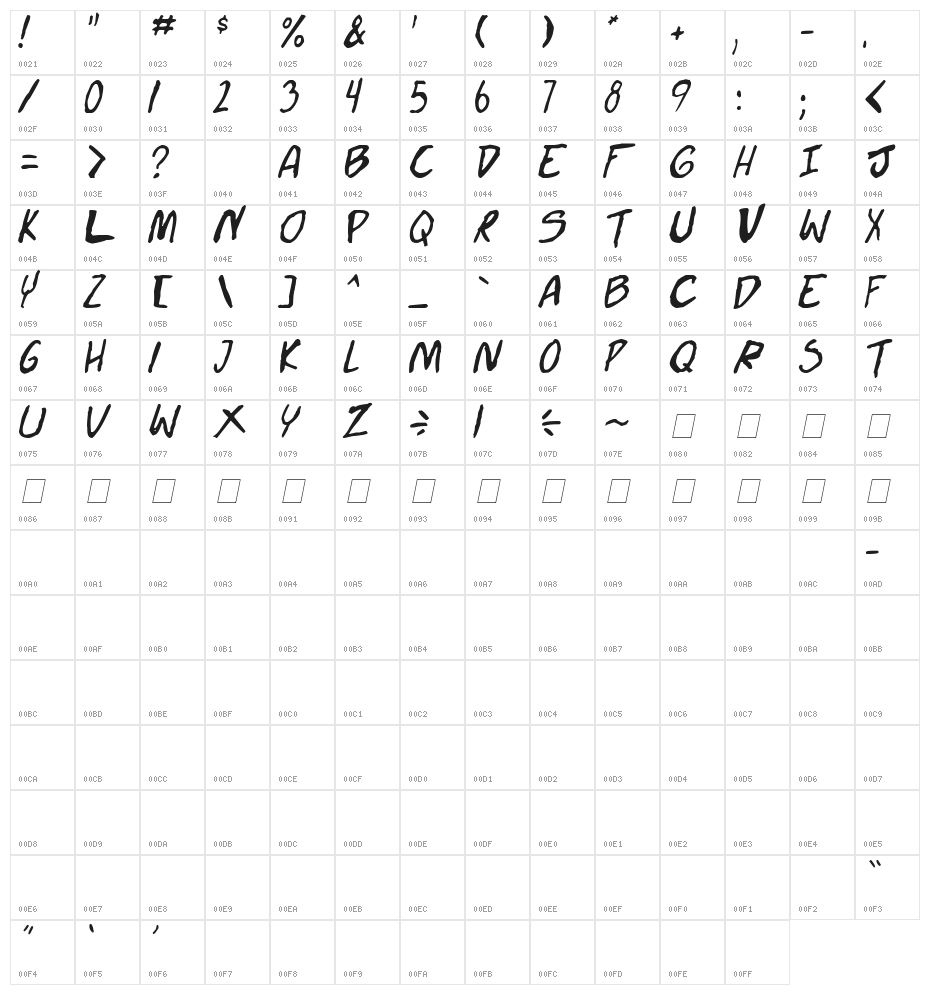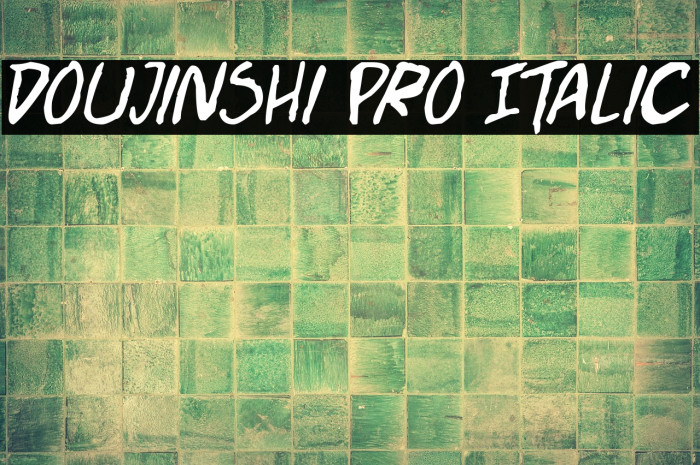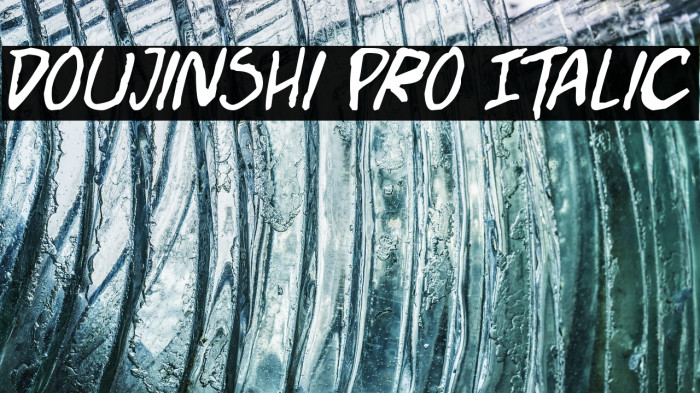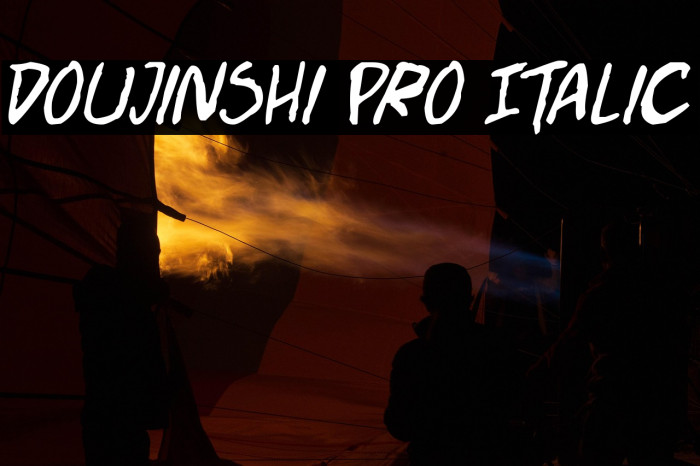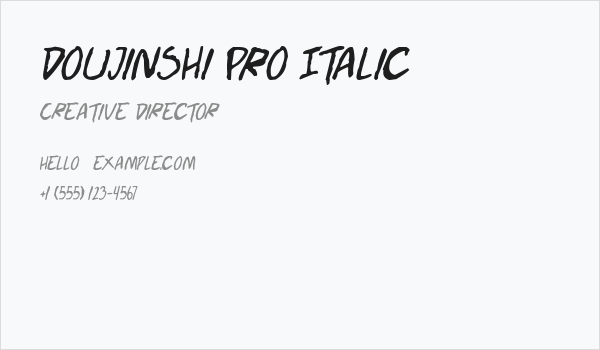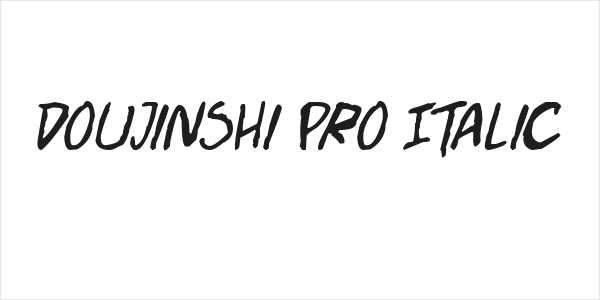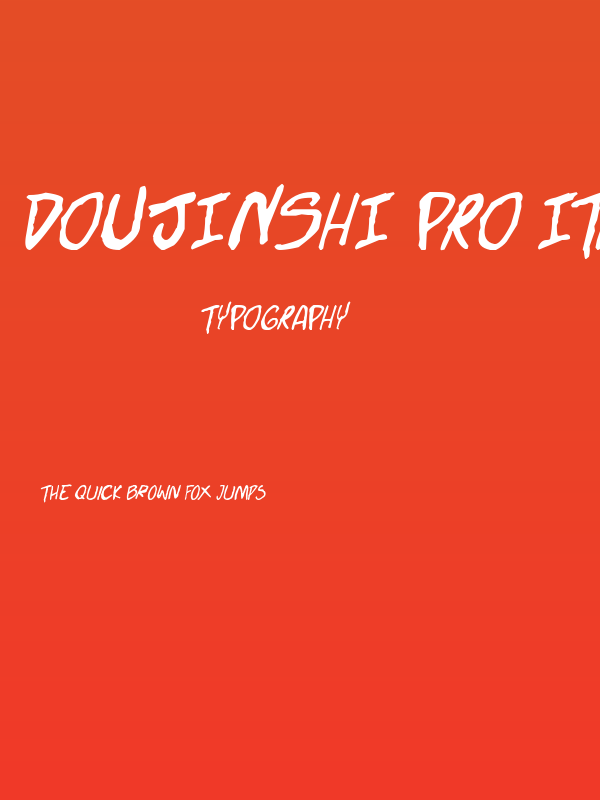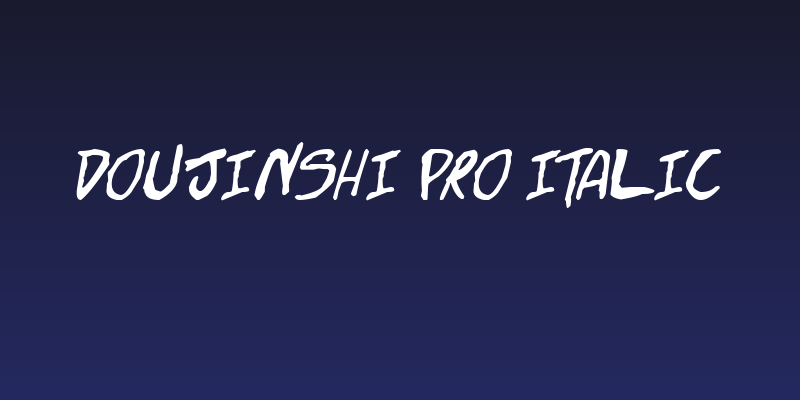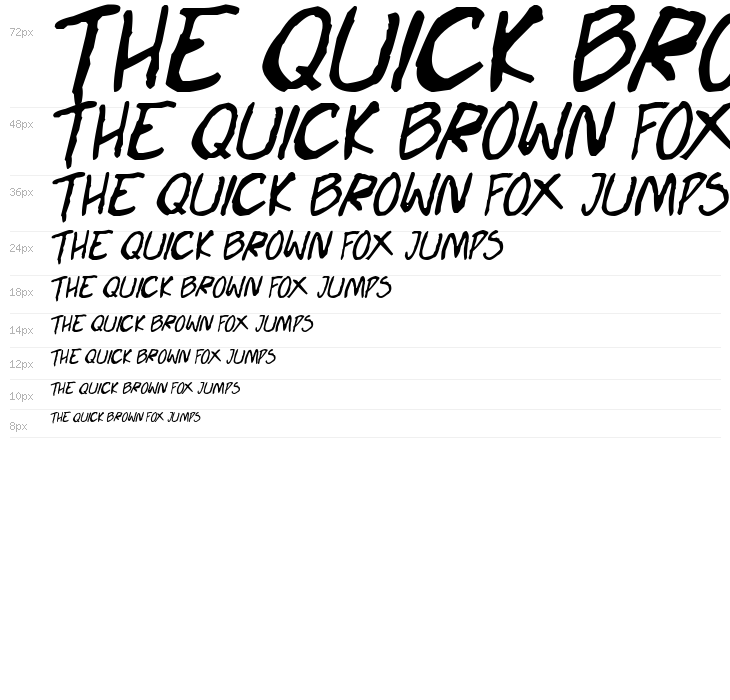
Doujinshi Pro Italic Font
Doujinshi Pro Italic Description
This font features a dynamic and energetic style with a handwritten appearance. The letters are slanted, giving it an italicized look, which adds a sense of motion and fluidity. The strokes are bold and expressive, with varying thickness that contributes to a lively and informal aesthetic. The characters are slightly irregular, enhancing the handwritten feel. This font includes both uppercase and lowercase letters, numbers, and a variety of special characters, making it versatile for different uses. The overall design is playful and creative, suitable for projects that require a personal touch.
| Proposed Projects | Ideal for comic books, creative posters, personal branding, and informal invitations. |